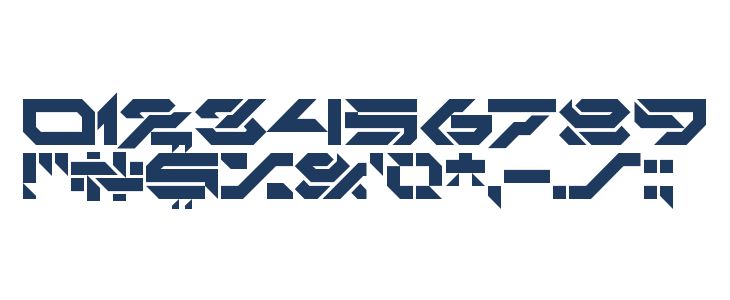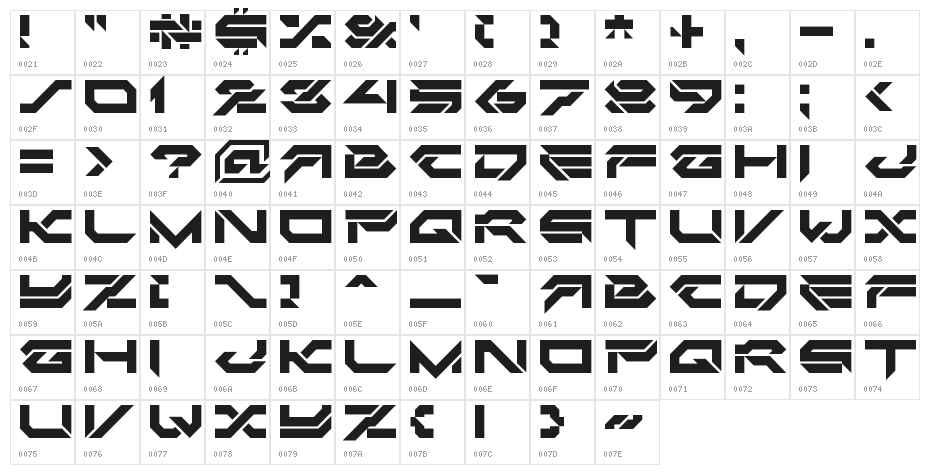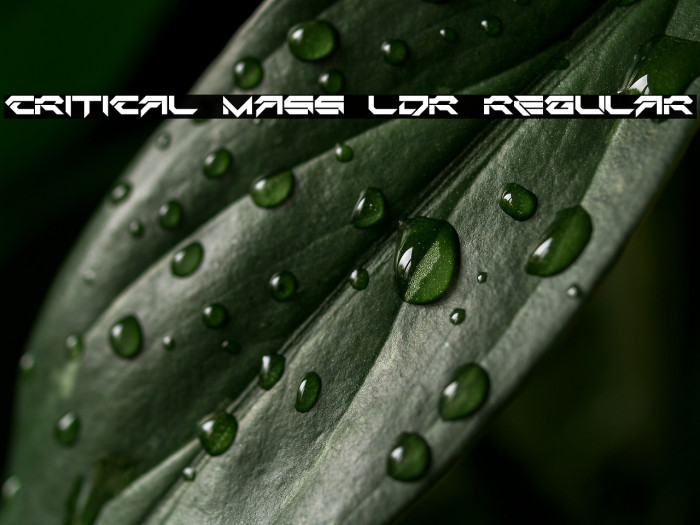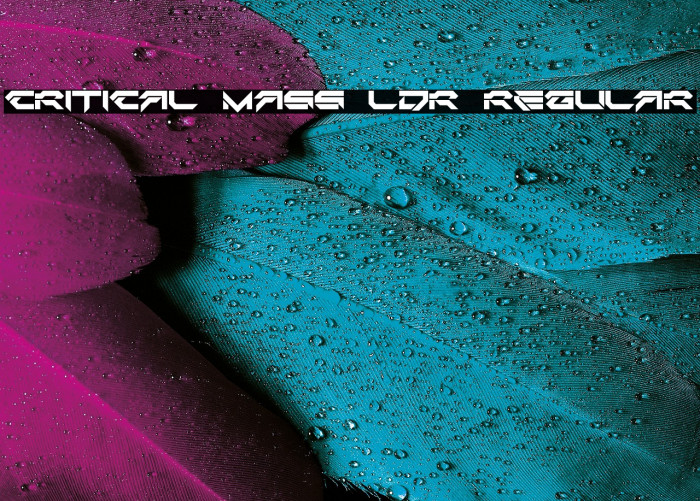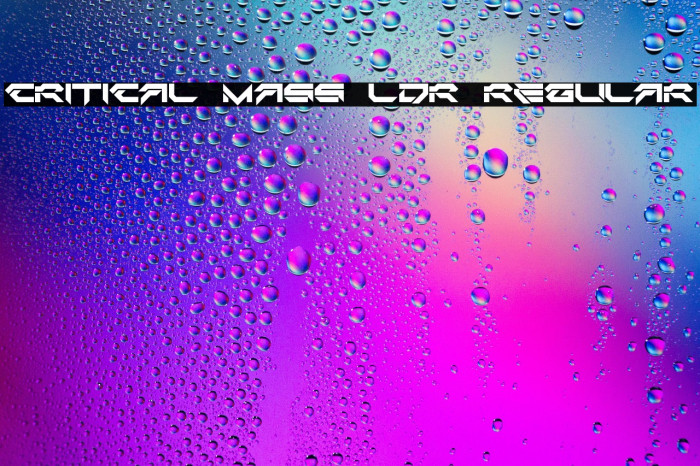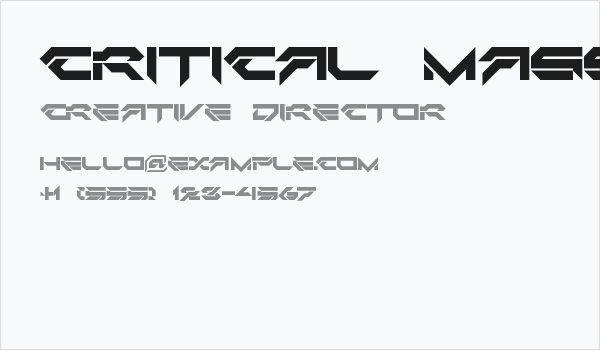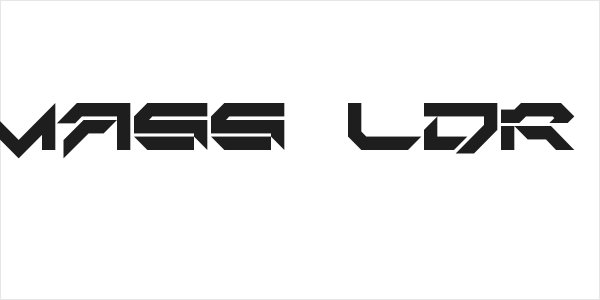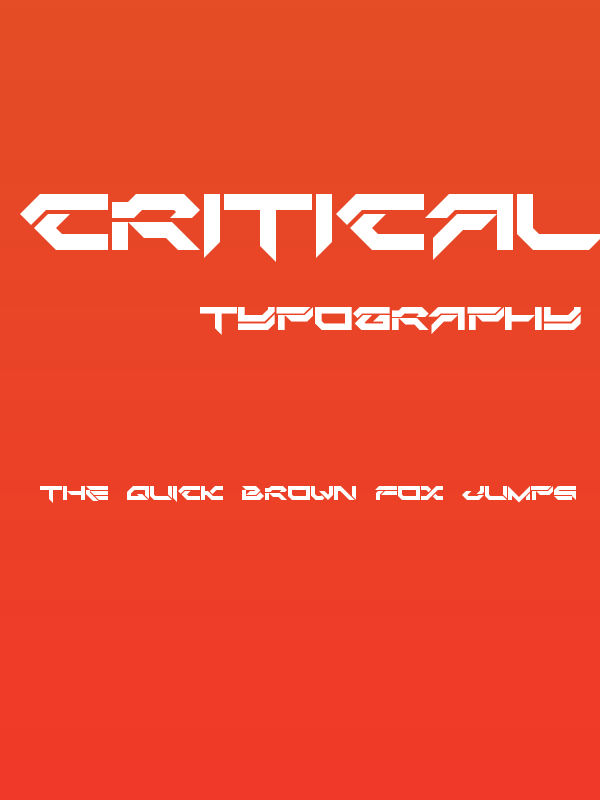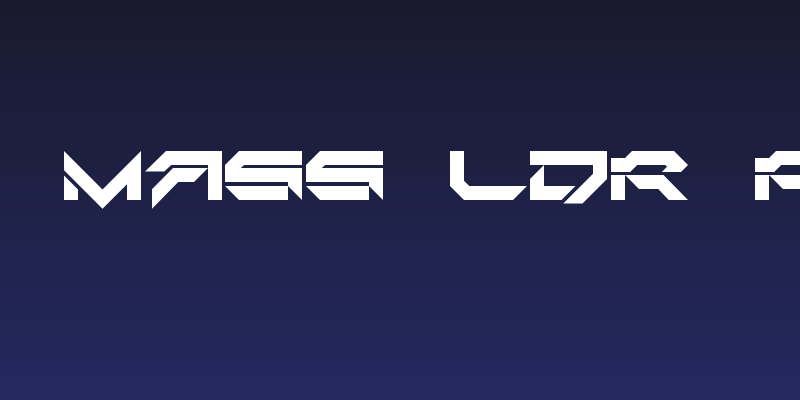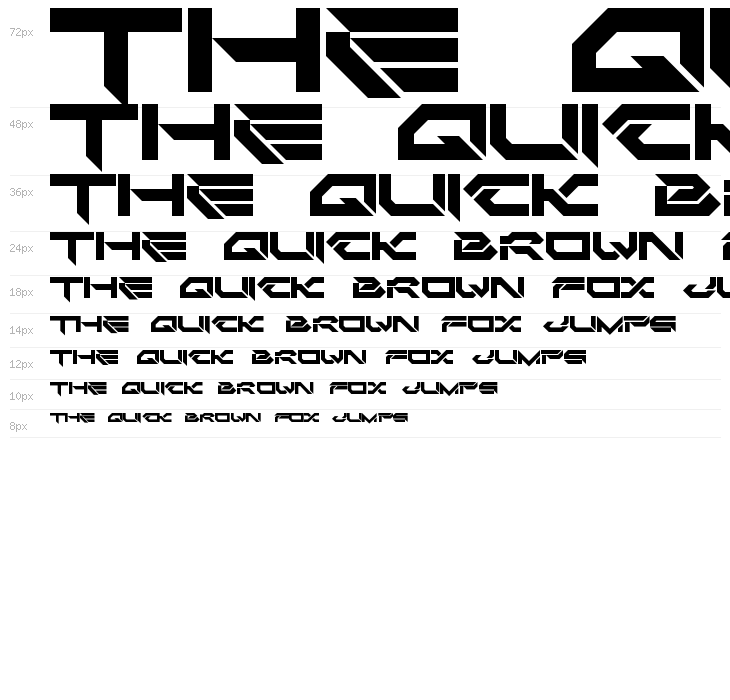
Critical Mass LDR Regular Font
Critical Mass LDR Regular Description
This font features a futuristic and angular design, characterized by sharp edges and geometric shapes. The letters are bold and striking, with a distinct sci-fi aesthetic that makes them stand out. Each character is crafted with precision, creating a cohesive and modern look. The font's unique style is ideal for projects that require a strong visual impact, such as technology-themed designs or video game titles. Its boldness and angularity give it a dynamic and energetic feel, perfect for capturing attention and conveying a sense of innovation.
Overall StyleFuturistic
Proposed ProjectsIdeal for technology-themed designs, video game titles, and futuristic branding.